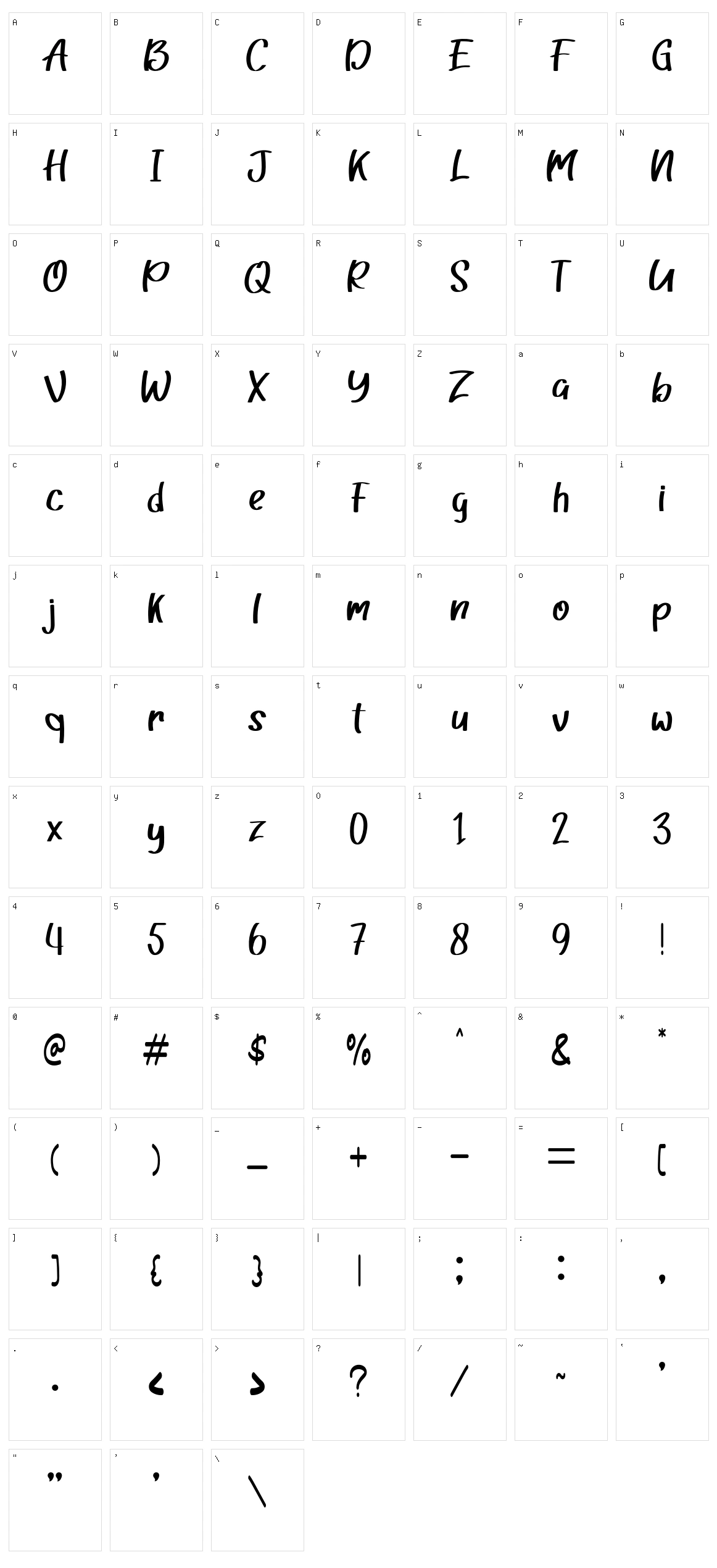
The free font Night Sky is carefully designed by Morning Time Studio, showcasing a thoughtful balance of creativity and usability and falls under the Script font style. When you download the ZIP file, it contains only 46.03 KB of font files, making it lightweight and quick to download. Please review the license details below to understand permitted usage and distribution rights. If license information is not available, we recommend using this font for personal projects only or contacting the author directly for commercial usage permissions.